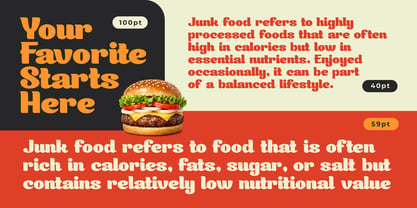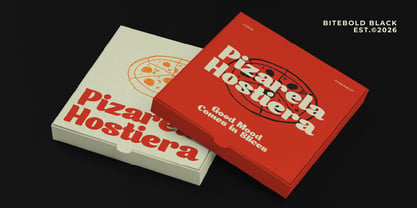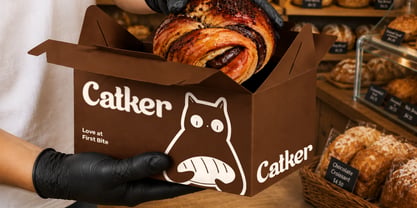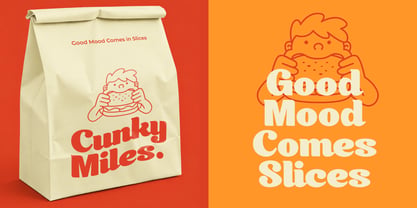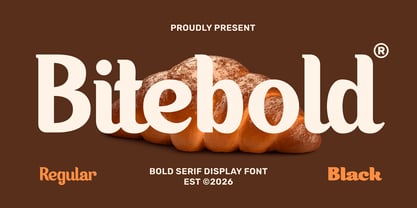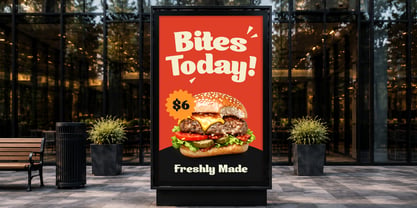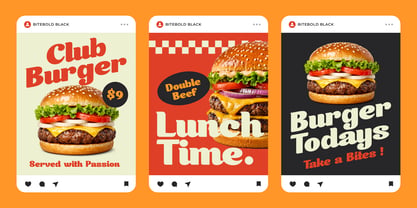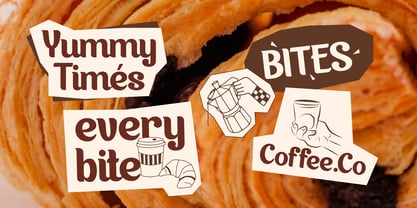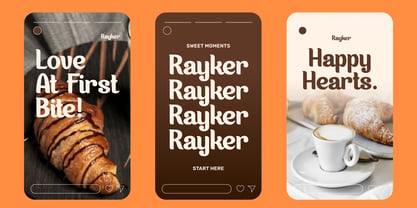
Bitebold
The Bitebold Font Family was designed by Saeful Maarif and published by Steptype. Bitebold contains 2 styles and family package options. More about this family
Bitebold Black is a heavy retro serif packed with curves, warmth, and mouth-watering personality. With its thick strokes, rounded terminals, and playful '70s energy, Bitebold Black is built to make food branding look irresistible — the kind of type that turns a menu, a burger box, or a sale poster into pure craving.
Where a clean display serif stays formal, Bitebold Black leans juicy and casual: friendly, bold, and full of flavor. With a complete set of uppercase, lowercase, numerals, and punctuation, it's ready for food & beverage branding, packaging, retro promos, and lifestyle brands that want to feel warm, nostalgic, and fun.